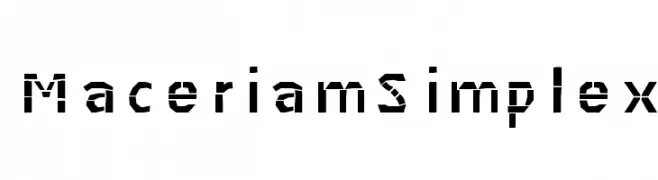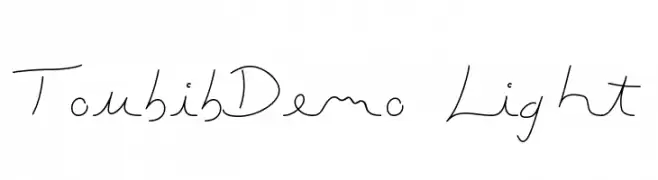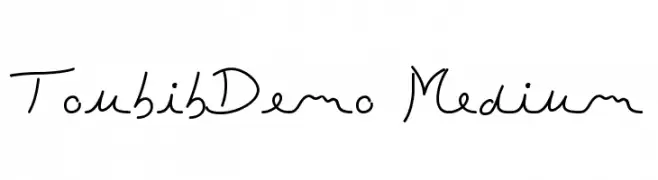
A bold, geometric stencil font with sharp angles and clean lines.
An elegant script font with graceful curves and intricate details.
A playful and elegant script font with a handwritten appearance.
A light, handwritten font with thin, flowing strokes and a casual elegance.
A playful handwritten font with fluid, slightly irregular strokes.
A playful, casual handwritten font with dynamic strokes and a relaxed vibe.
A sleek, modern font with elongated, narrow characters and high contrast.
A decorative, hand-drawn font with textured, outlined characters.
A playful, pattern-filled decorative font with a hand-drawn style.
A bold, geometric stencil font with a modern, industrial aesthetic.